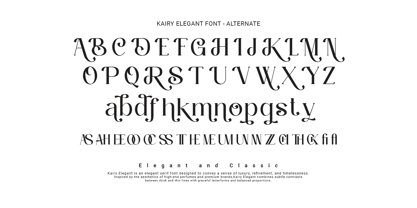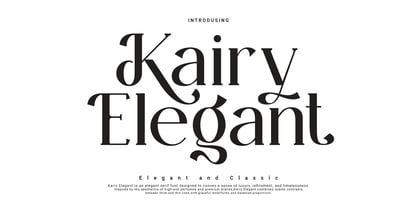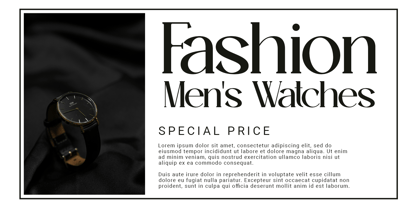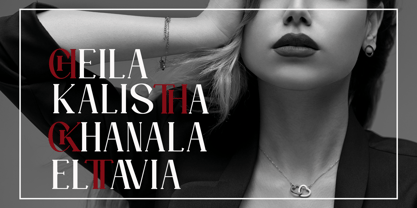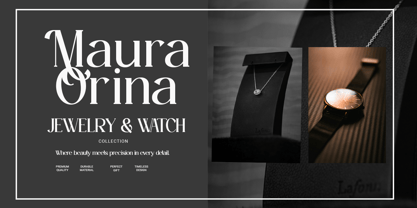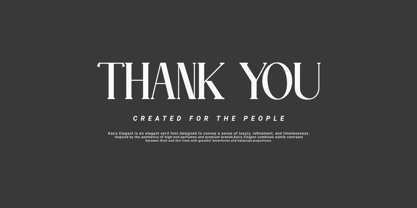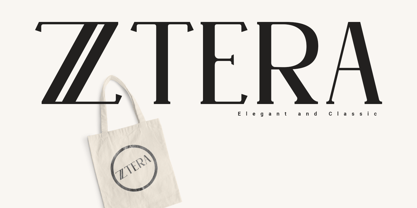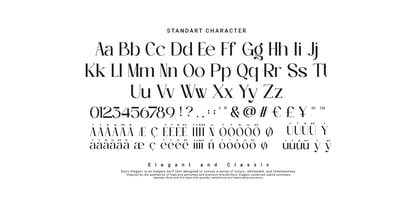
Kairy Elegant
by Agung Sudirman
The Kairy Elegant Font Family was designed by Agung Sudirman and published by Agung Sudirman. Kairy Elegant contains 2 styles and family package options. More about this family
Kairy Elegant is a sophisticated luxury serif typeface, designed to capture the essence of timeless beauty, modern luxury, and refined elegance through its graceful letterforms, stylish contrasts, and premium aesthetic, making it an excellent choice for high-end branding, fashion magazines, jewelry advertising, wedding invitations, cosmetic packaging, luxury logos, boutique identities, and exclusive editorial designs that aim to create a classy, ​​feminine, and unforgettable visual experience.